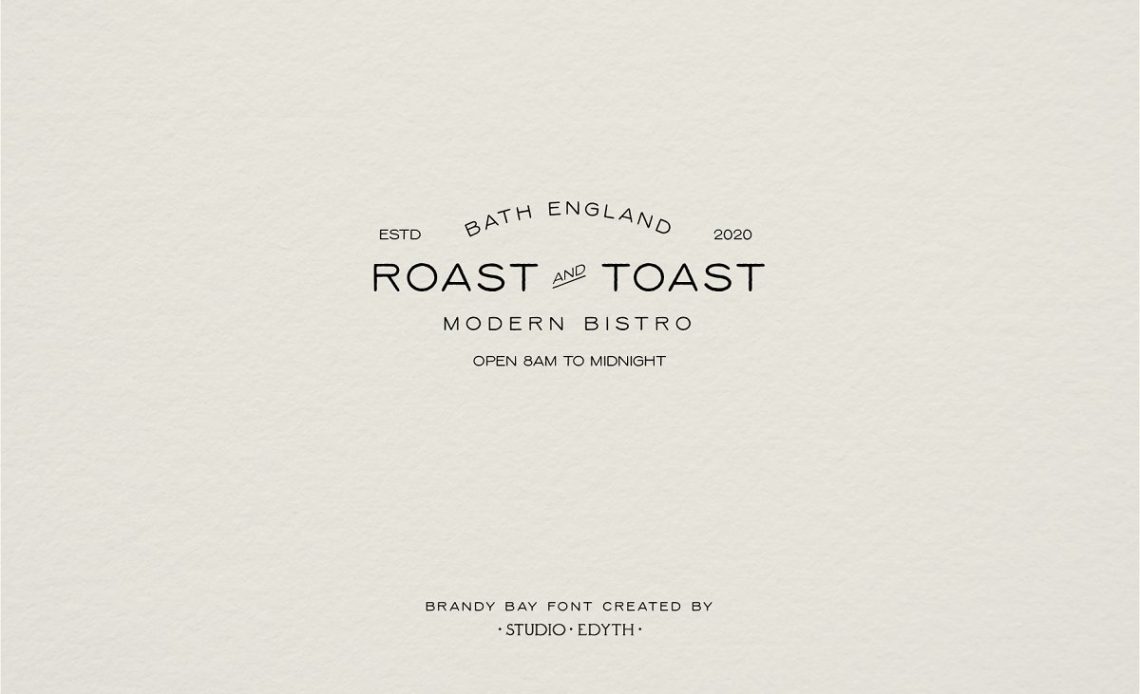
Introducing Brandy Bay, the perfect font for anyone looking to add a touch of elegance and personality to their project. Created by the talented designers at Studio Edyth, this hand-drawn sans serif font is sure to catch your eye with its soft and rounded appearance.
With its versatile style and vintage feel, Brandy Bay is an ideal choice for a wide range of design projects. Whether you're working on branding and logo projects, or looking to create stunning visuals for your blog, Instagram, or photography, this font has got you covered.
What sets Brandy Bay apart from other fonts is its unique warmth and character. The soft curves and rounded edges give it a charming and inviting feel, making it perfect for adding a personal touch to your projects.
But that's not all. Brandy Bay comes with a wide range of features and file formats, making it easy to use and customize to your liking. With uppercase characters and three ampersand/and glyphs included, you'll have everything you need to create the perfect design.
And if you're worried about language support, don't be. Brandy Bay offers multilingual support for a variety of languages, including French, Spanish, German, and more. Plus, it's easy to access the alternate glyphs and ampersands in Adobe Photoshop and Illustrator, making it a breeze to customize and personalize your designs.
In summary, Brandy Bay is the perfect font for anyone looking to add a touch of elegance, personality, and warmth to their designs. With its versatile style, easy-to-use features, and multilingual support, it's sure to become a go-to choice for designers and creatives everywhere.